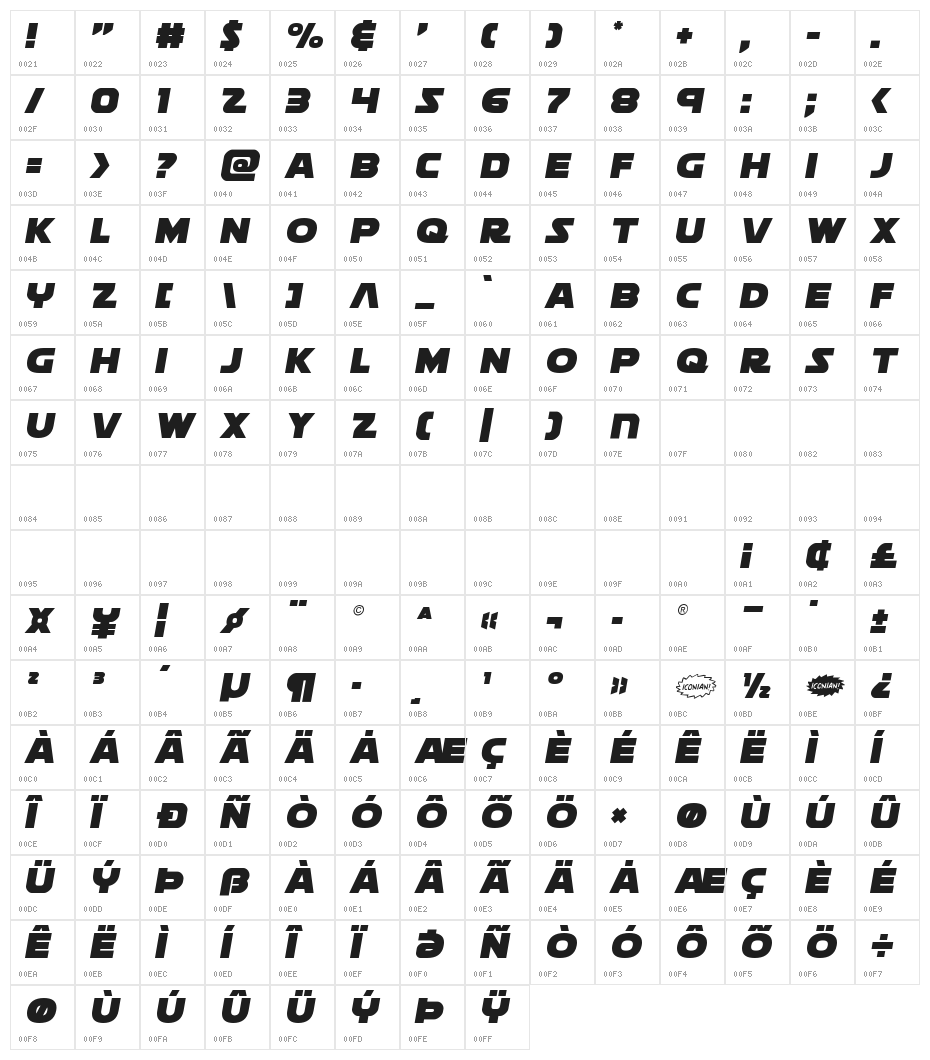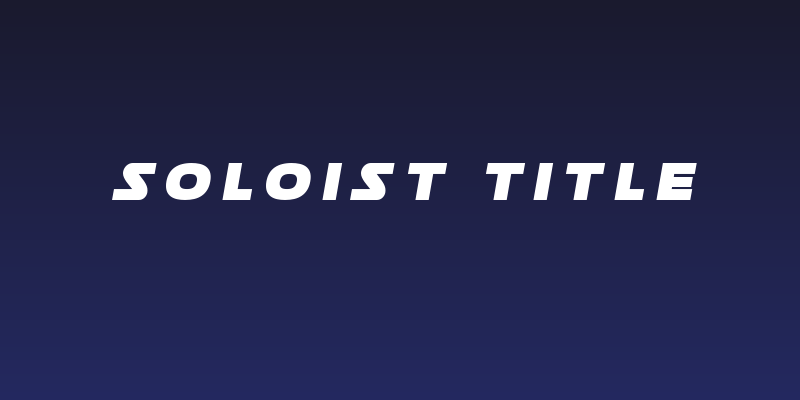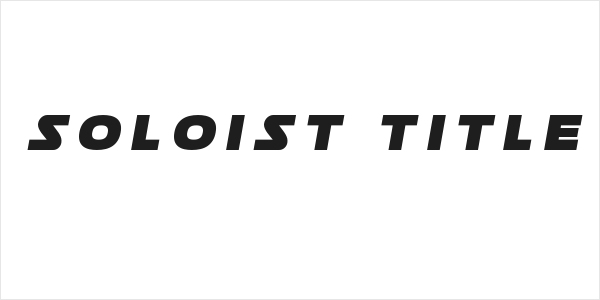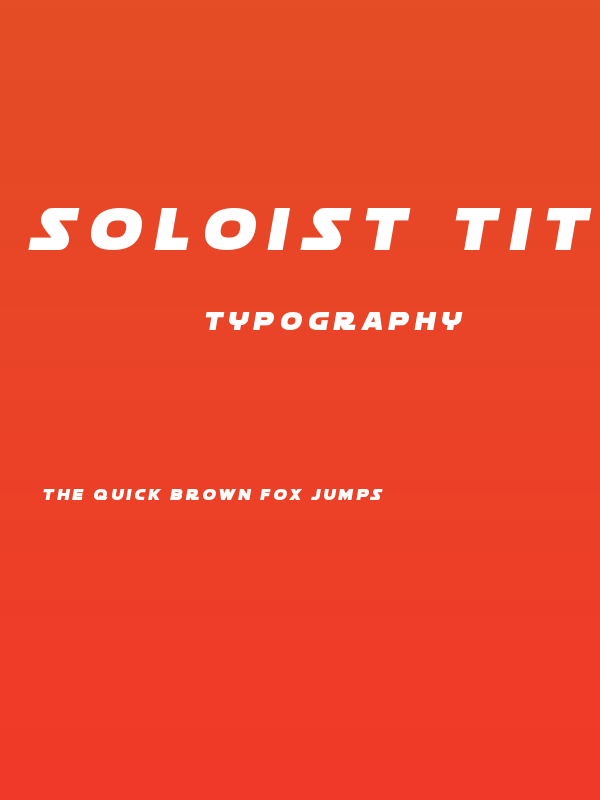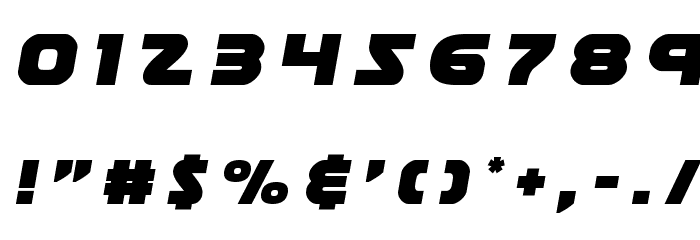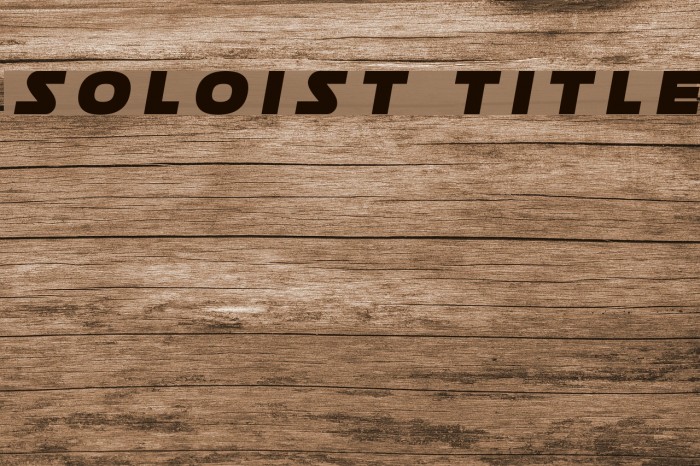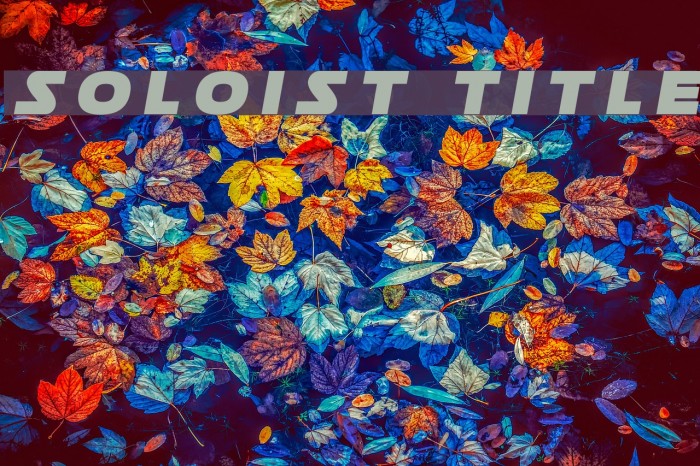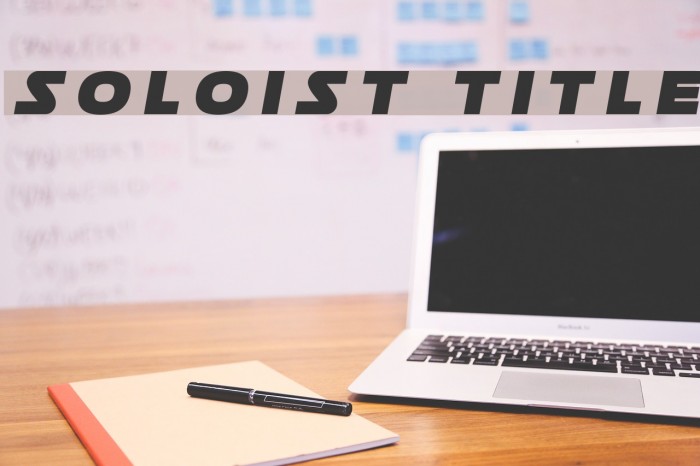
Soloist Title Font
✎ Futuristic
Soloist Title Description
This font exhibits a bold and dynamic style with a strong presence. The characters are slightly slanted, giving a sense of motion and energy. The strokes are thick and consistent, contributing to a robust and impactful appearance. The design is modern and sleek, with a touch of futuristic flair. The uppercase and lowercase letters maintain a uniformity in style, while the numerals and special characters complement the overall aesthetic. The font's boldness and unique slant make it suitable for attention-grabbing headlines and titles.
| Proposed Projects | Ideal for sports branding, dynamic posters, modern advertisements, and eye-catching headlines. |